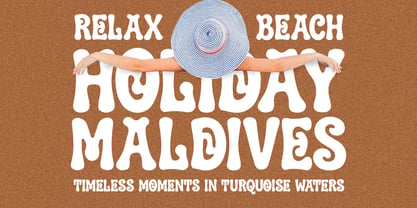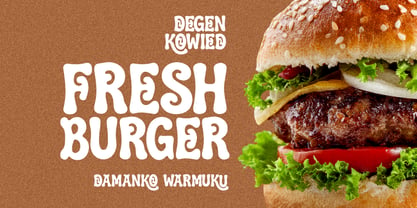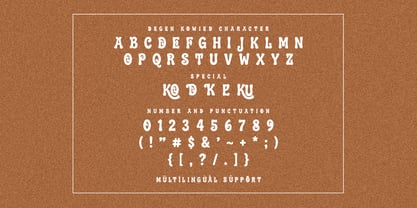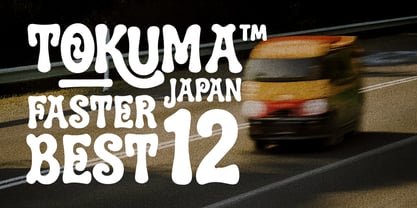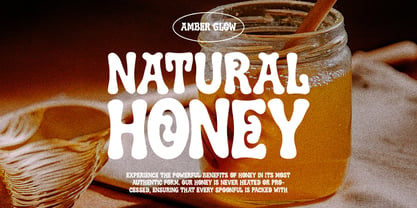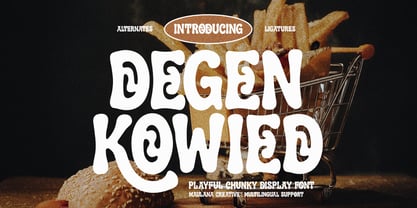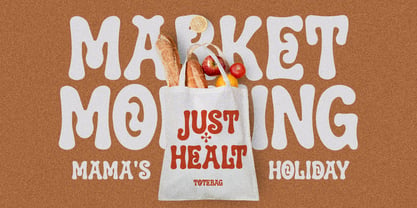
Degen Kowied
by Maulana Creative
The Degen Kowied Font Family was designed by Gilang Maulana and published by Maulana Creative. Degen Kowied contains 1 styles. More about this family
Degen Kowied is a bold, heavy-weight display font designed to bring a fun, vibrant, and energetic vibe to any creative project. Featuring thick, exaggerated letterforms with unique psychedelic curves and inner swirls, this typeface captures a nostalgic yet modern retro aesthetic. Its soft, rounded edges give it an approachable and friendly appearance, making it highly effective for eye-catching titles and prominent headlines.
Perfect for food packaging, cafe menus, product branding, posters, social media graphics, and book covers, Degen Kowied ensures your text stands out with maximum visual impact. It includes a variety of creative alternates, ligatures, numbers, punctuation, and full multilingual support, offering great flexibility for expressive and dynamic layouts.